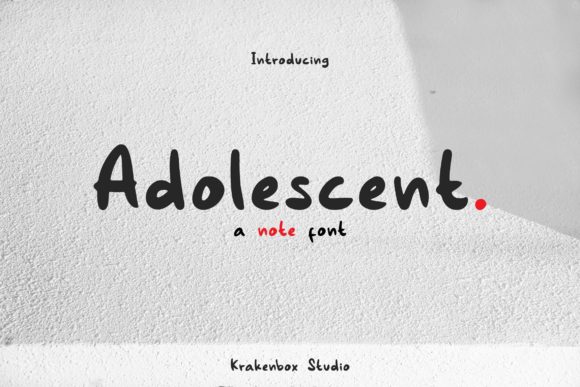
The Ultimate Guide to Adolescent Font: Adding a Cool Touch to Your Designs
I’ll never forget the time I was working on a project for a trendy clothing brand, and I just couldn’t find the right font to capture their youthful vibe. The client wanted something that would appeal to teenagers, but still look professional and polished. That’s when I stumbled upon the Adolescent font, and it was love at first sight! 😍
Adolescent is a cute and playful handwritten font that’s perfect for adding a cool touch to any design idea you can think of. In this article, I’ll share my honest review of the font, provide a practical guide on how to use it, and explore similar fonts and alternatives.
- Adolescent has a unique, hand-drawn feel that’s perfect for designs that need a personal touch.
- The font is highly legible, even at small sizes, making it great for body text and headlines.
- It’s versatile and can be used for a wide range of design projects, from branding and advertising to packaging and web design.
- The font comes with a range of OpenType features, including glyphs and stylistic alternates, which allow for endless customization options.
- Some characters, like the lowercase “g” and “y”, have a slightly quirky design that might not appeal to everyone.
- The font can look a bit too casual for very formal or corporate designs.
- ⚠️ Be careful when using the font at very large sizes, as some details might get lost.
The Story Behind Adolescent Font
Adolescent font was designed by a talented type designer who wanted to create a font that captured the spirit of adolescence. The designer drew inspiration from their own teenage years, as well as the world of fashion and street art. The result is a font that’s both playful and sophisticated, with a unique character that’s hard to find in other fonts.
Q: What is the best way to use Adolescent font?
A: The best way to use Adolescent font is to experiment with different OpenType features, glyphs, and stylistic alternates to create a unique look that suits your design.
Q: Is Adolescent font suitable for body text?
A: Yes, Adolescent font is highly legible and can be used for body text. However, it’s recommended to use a font size of at least 10-12 points to ensure optimal readability.